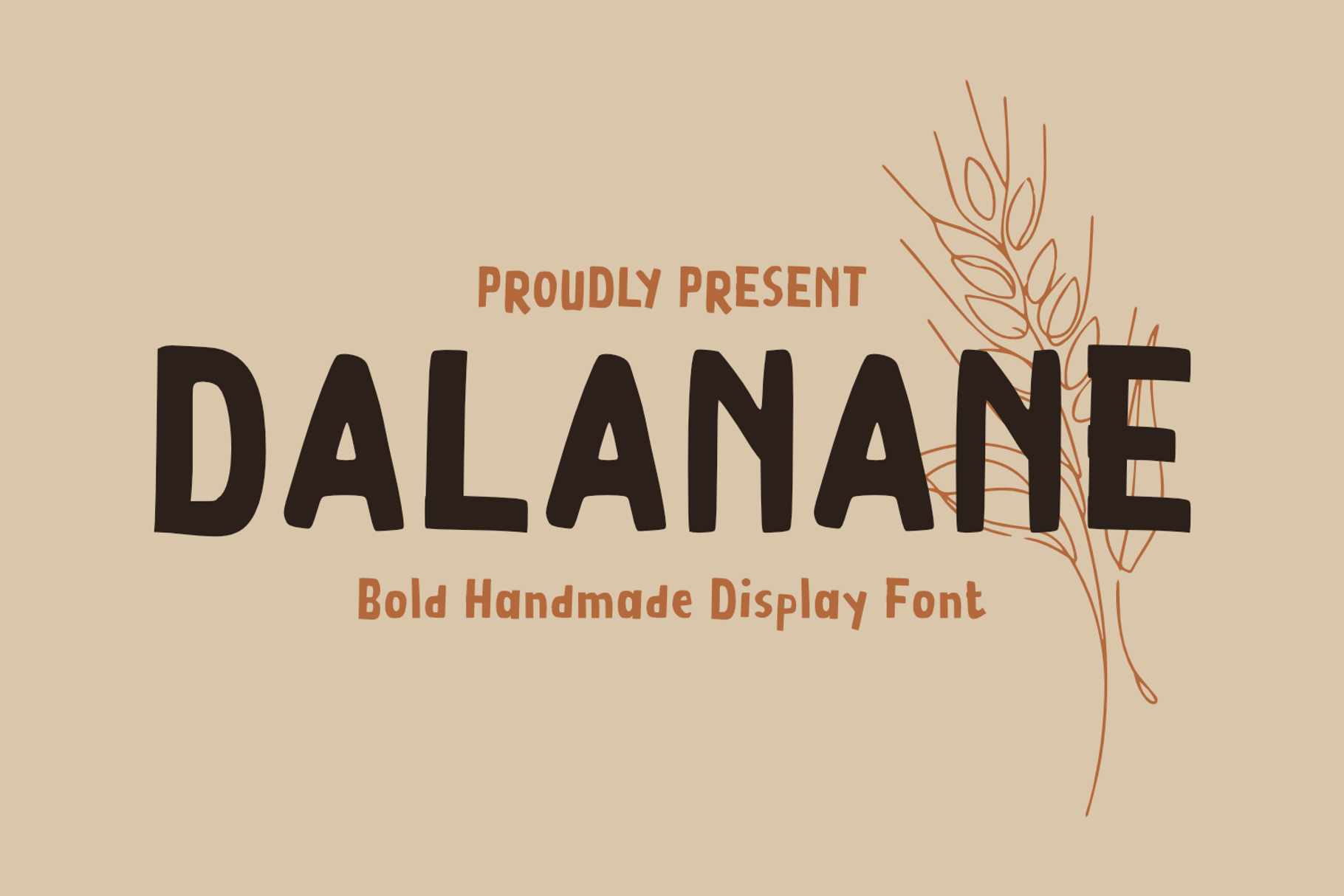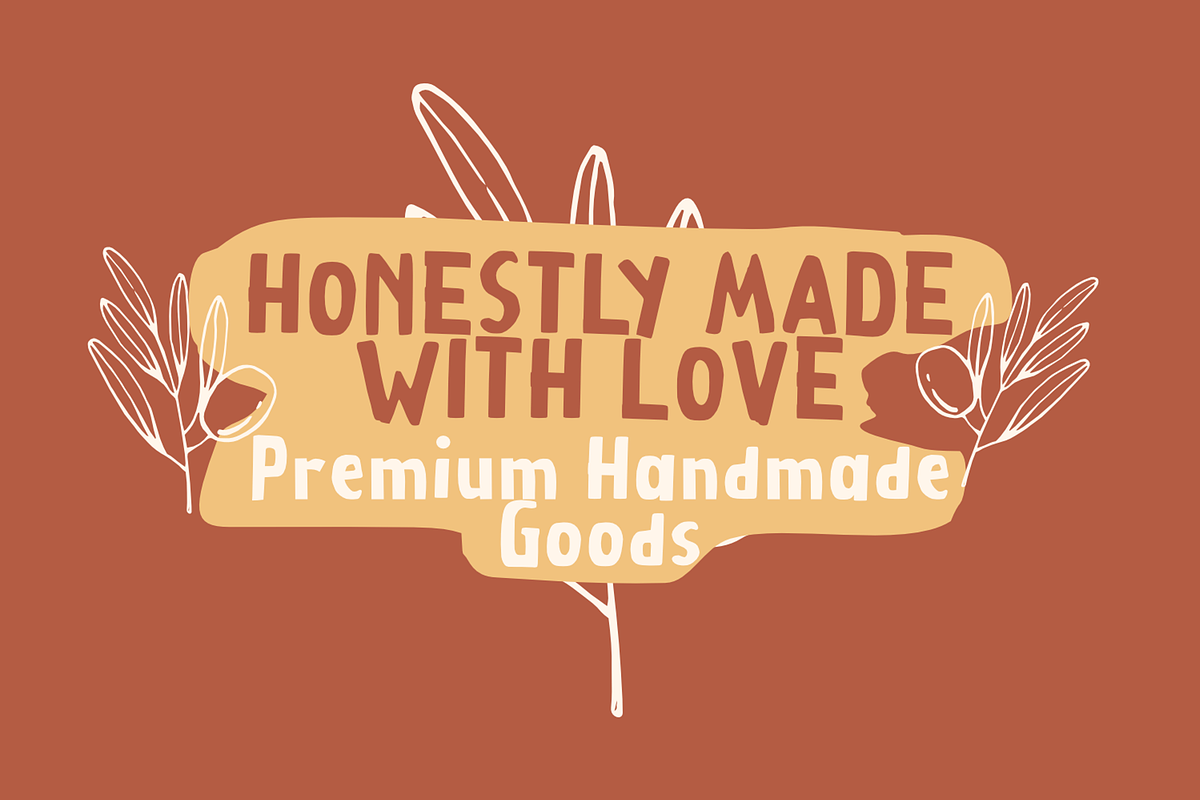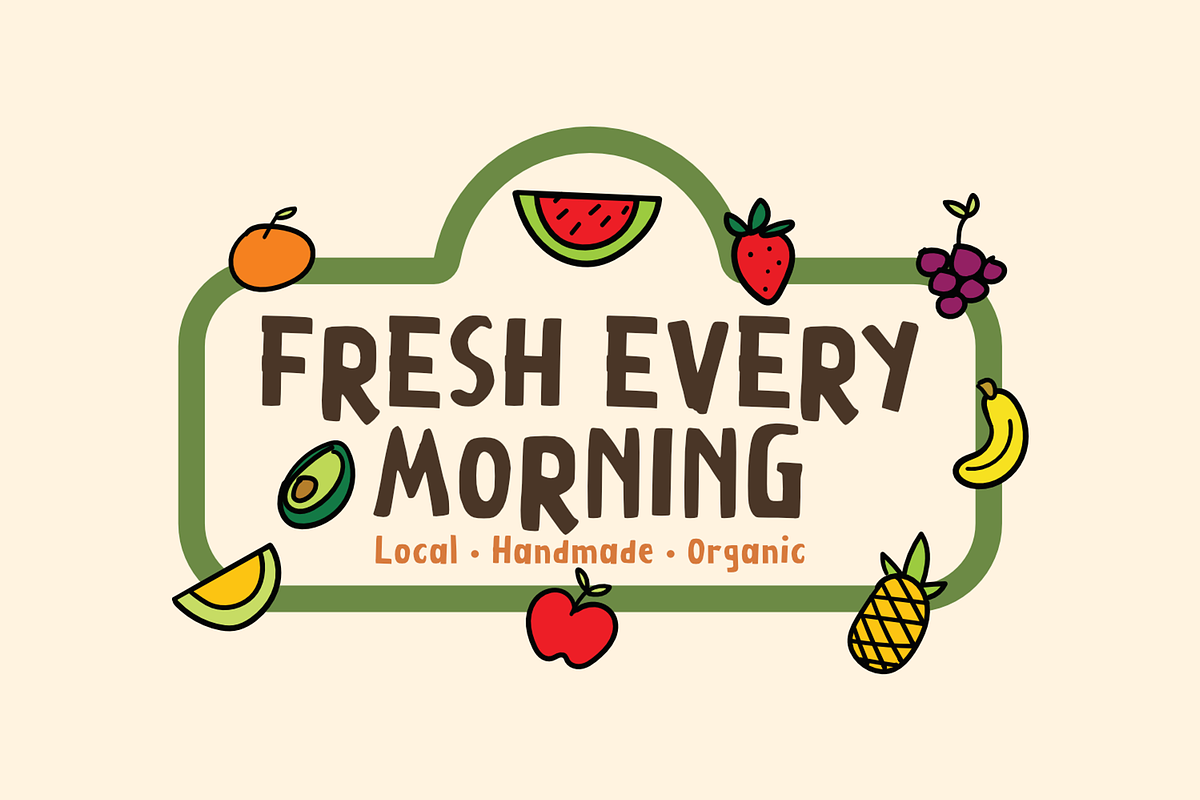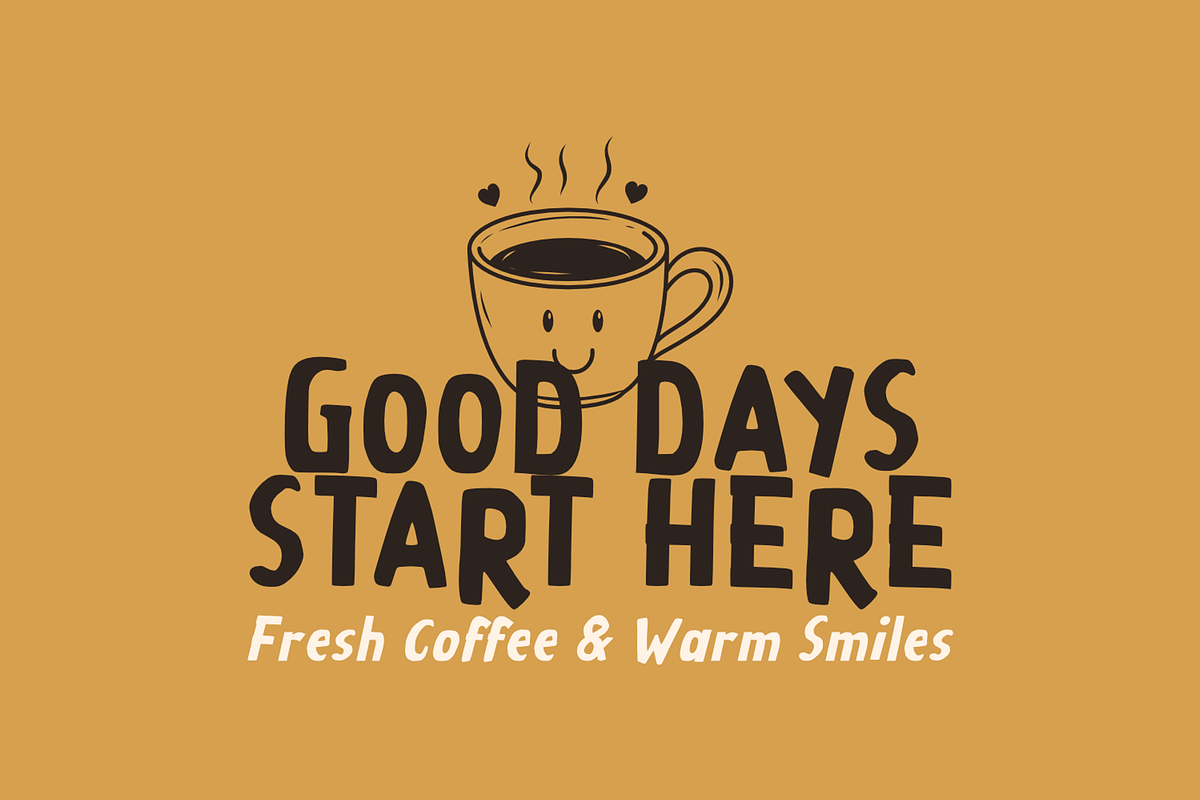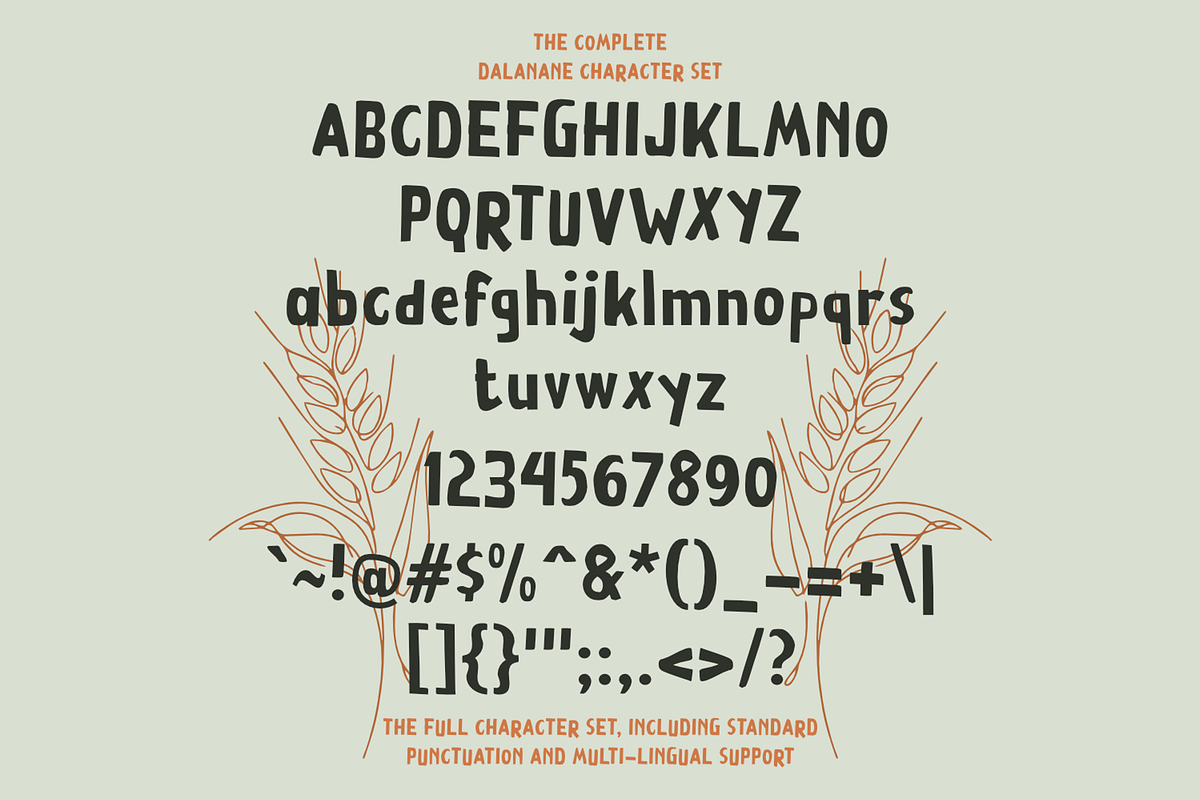
Dalanane Playful Display Font
DALANANE is a playful handmade display font crafted with bold, organic letterforms and a warm handcrafted personality. Its imperfect curves and friendly style make it perfect for logos, branding, packaging, children's products, posters, book covers, café menus, apparel, social media graphics, greeting cards, and creative craft projects. Designed to bring a fun, natural, and authentic vintage touch, DALANANE stands out beautifully in both print and digital designs while remaining highly readable and full of character